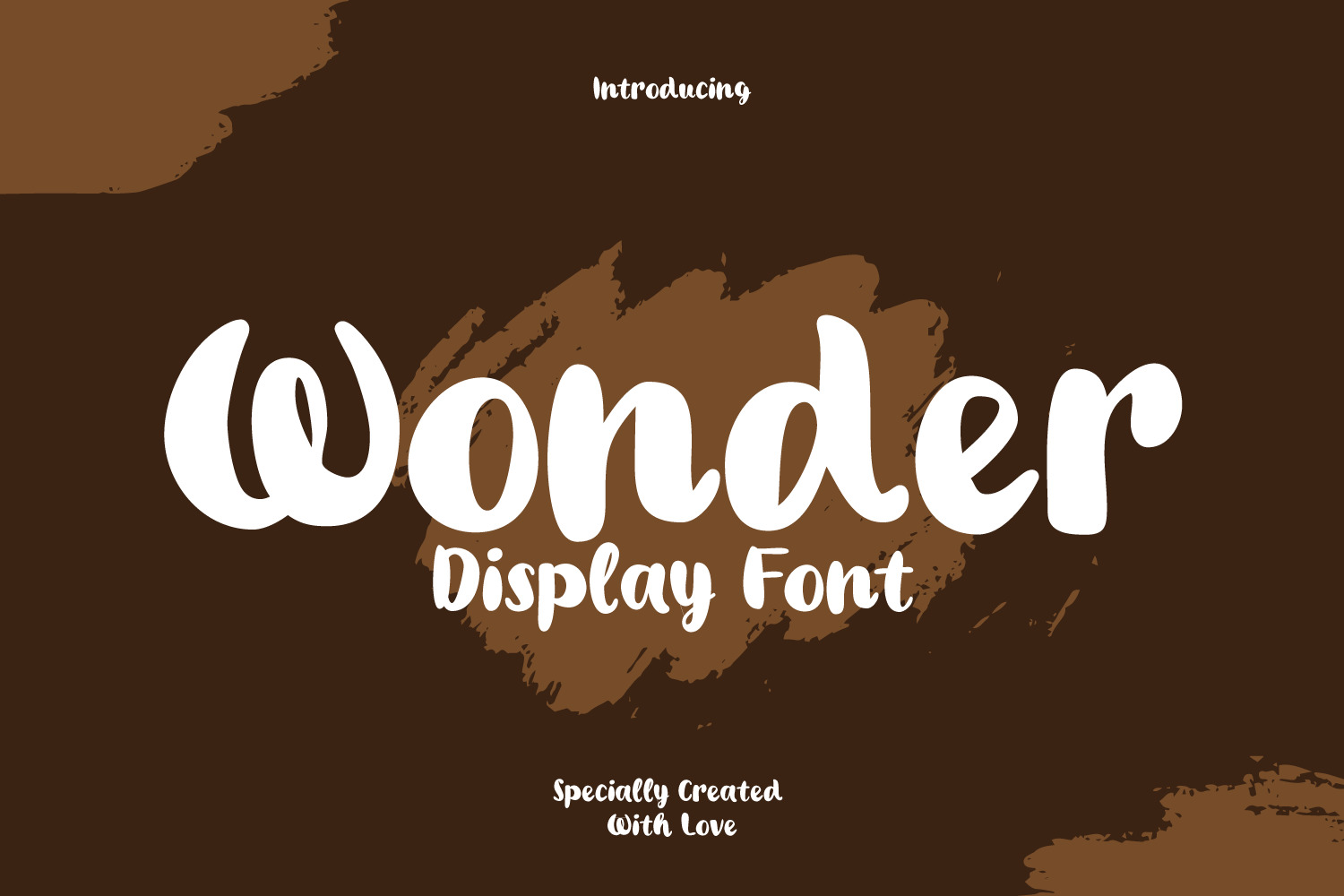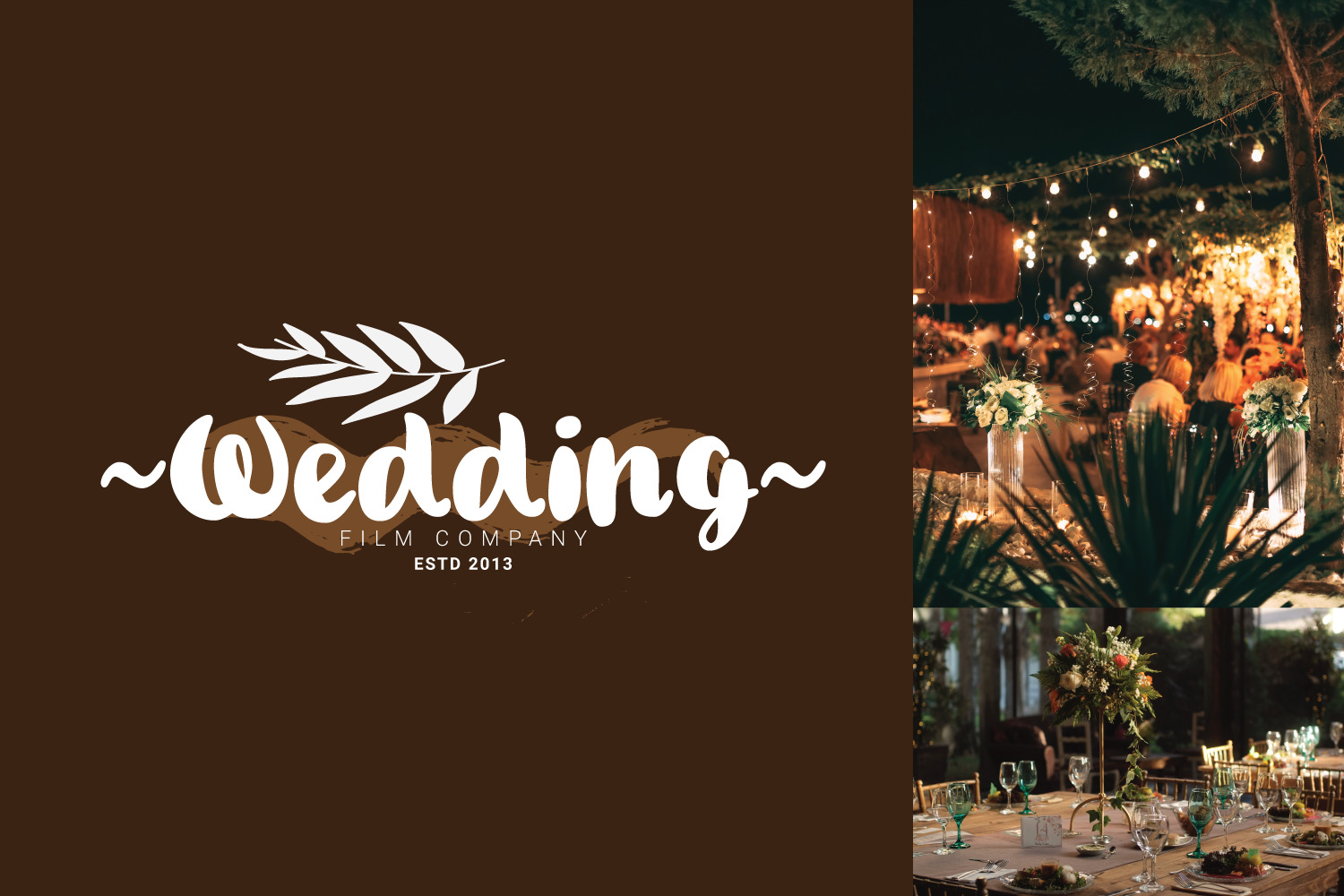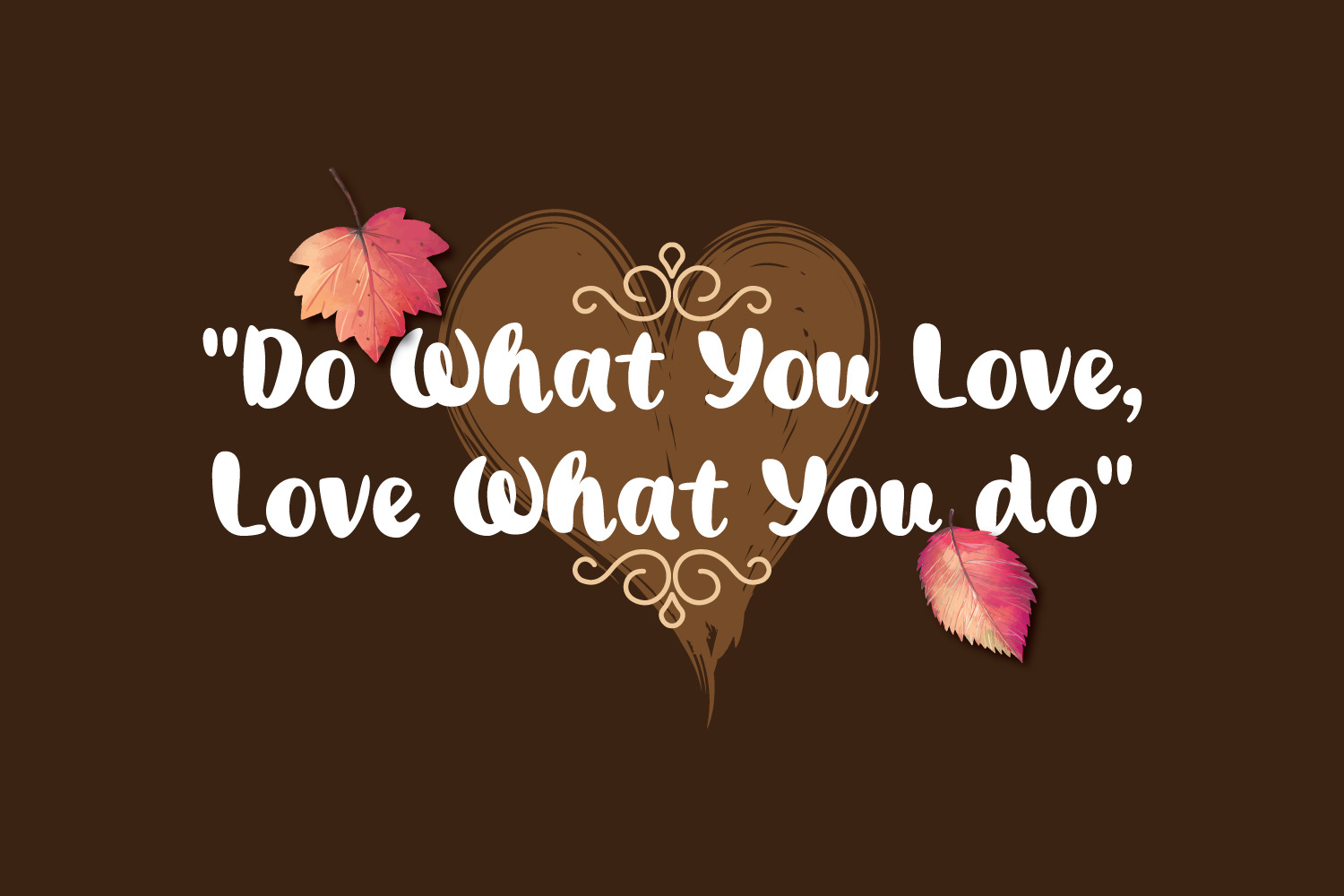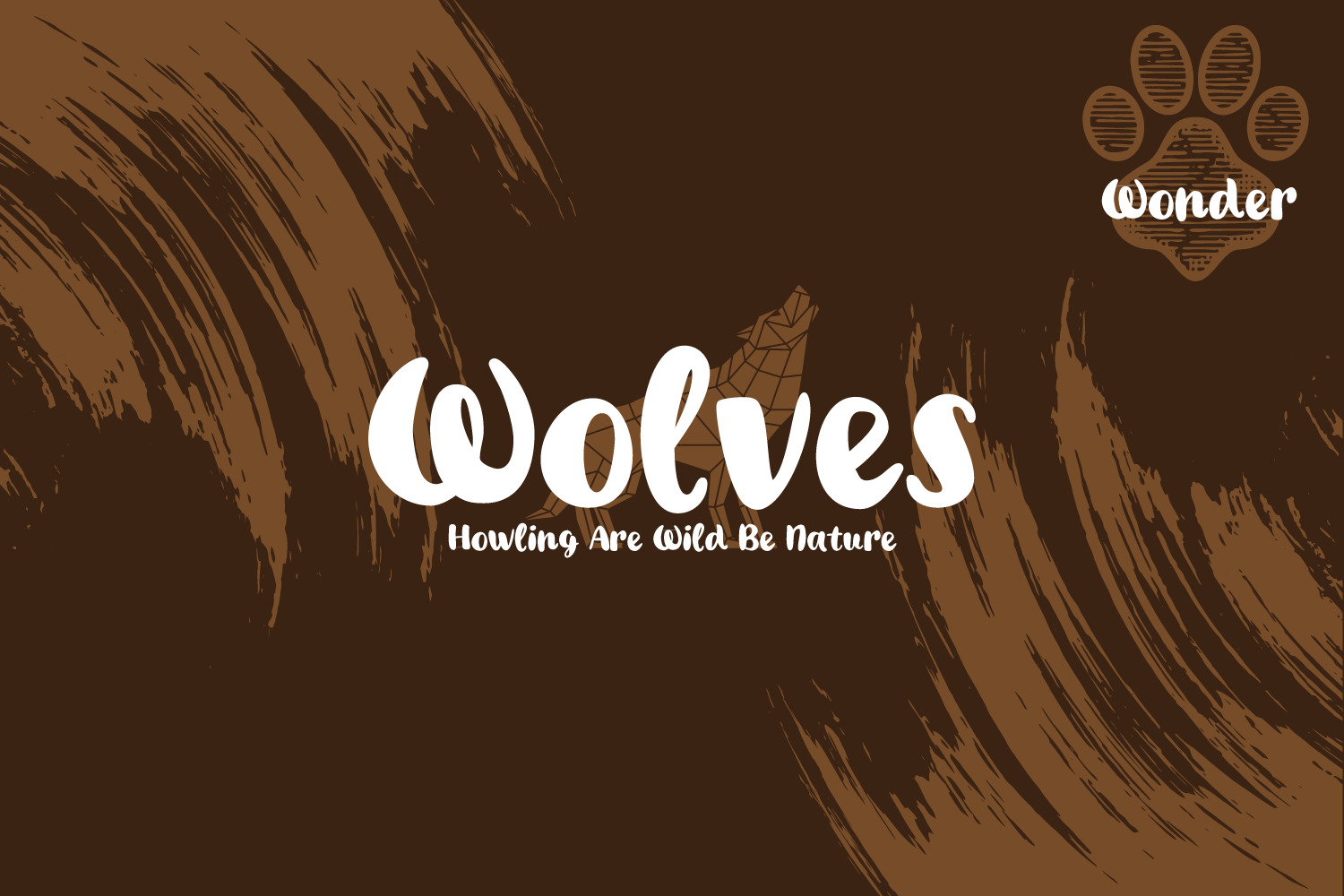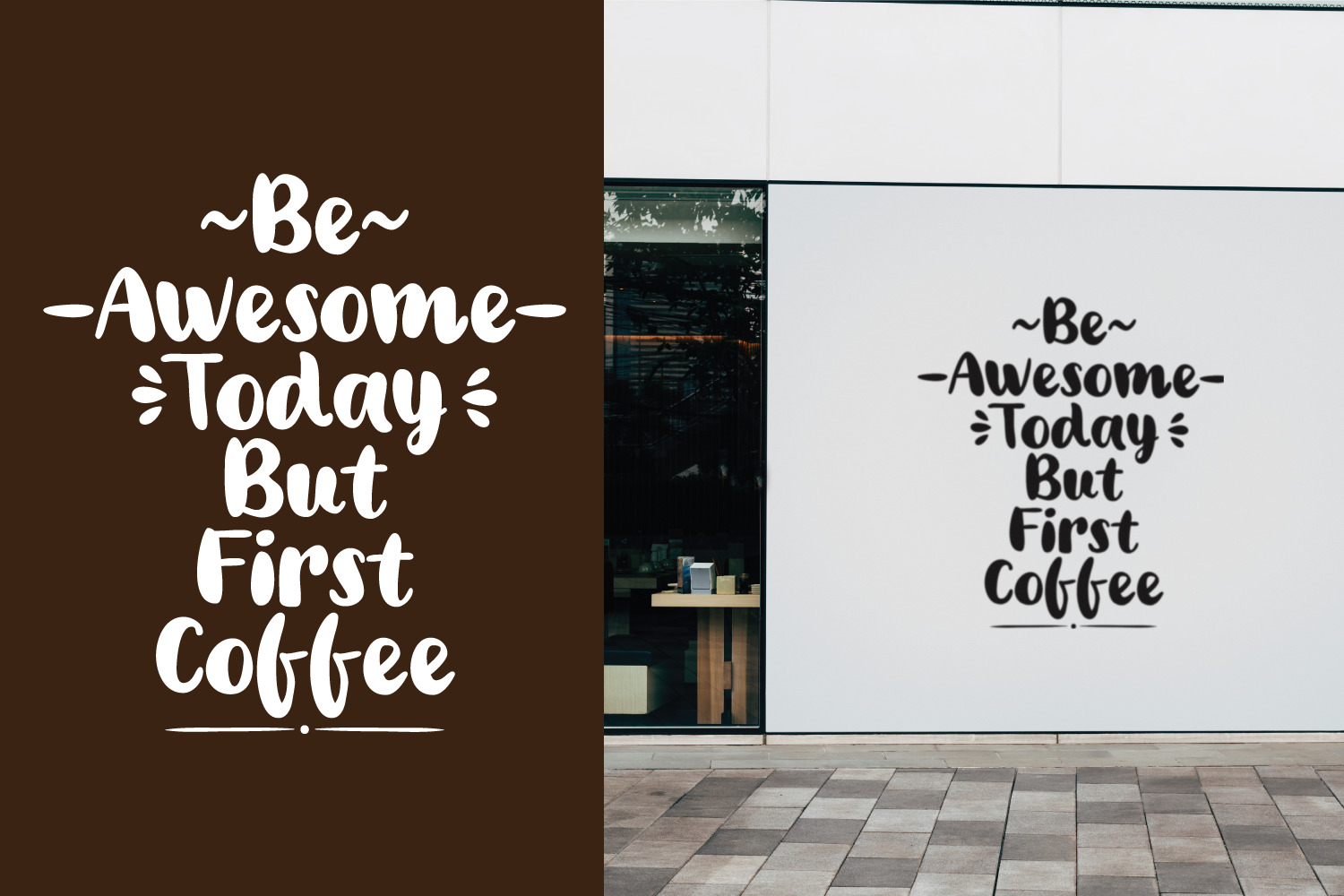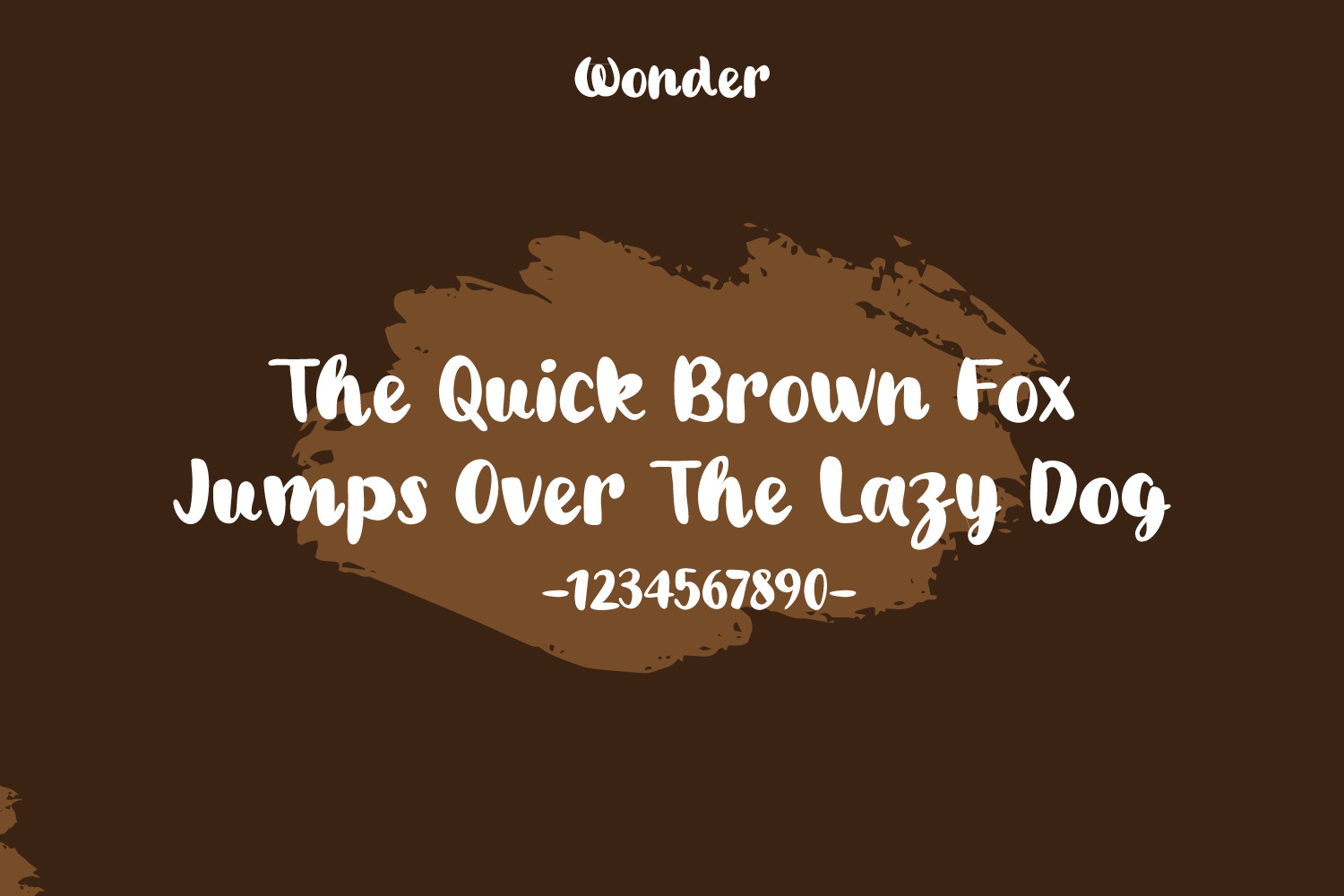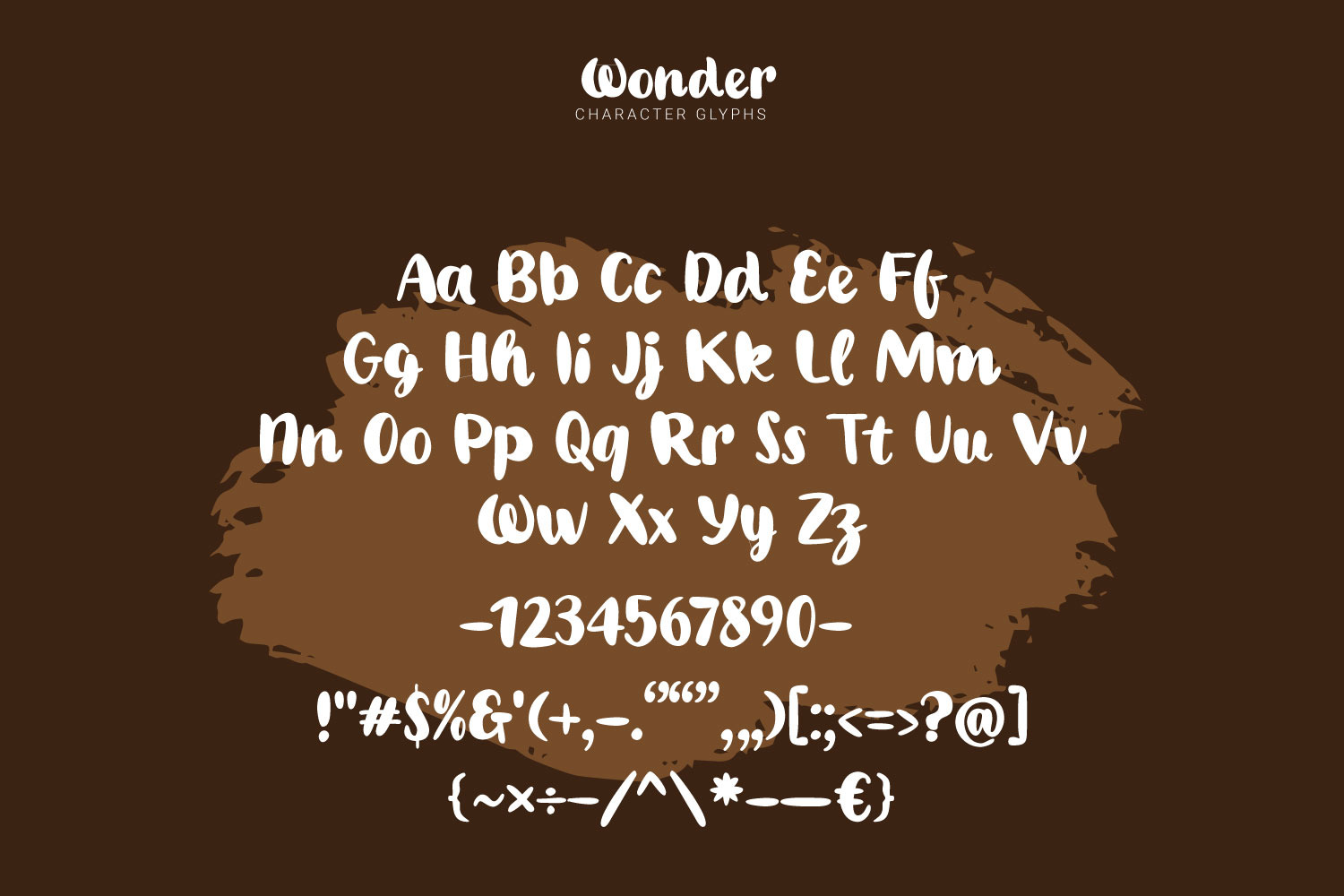
Wonder Font
Wonder is handwritten font, suitable for a wide spectrum of applications. From greeting cards to headlines, wedding themes, birthdays, quotes, stickers, or just overlays on images, this font will definitely elevate any creation.